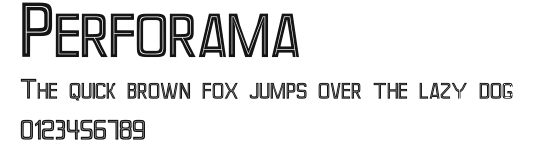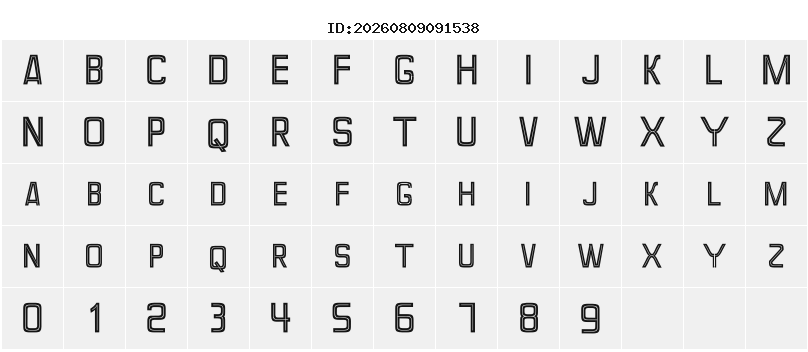
• Font Name: Perforama
• Designer: Frolov Alexey
• Manufacturer: MRFrukta - Font Firma (Alexey Frolov)
About Perforama.otf
Perforama.otf is a modern, elegant sans-serif font designed for ultimate readability and visual harmony. Perfect for branding, headlines, web design, and print materials.